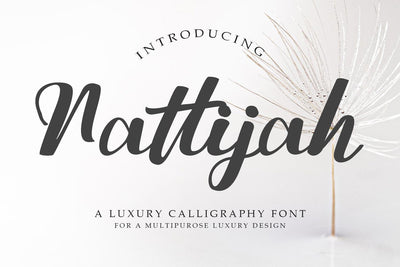
Nattijah Luxury Calligraphy Font
Nattijah is a Luxury Calligraphy Font, This font is handmade and has a powerful character with SALT and ligatures. The font is work specialty is good for product design like a Template/mockup, Post, T-shirt, Quote, New Years Present, typography design, etc. This product is inspirational for your creative design.